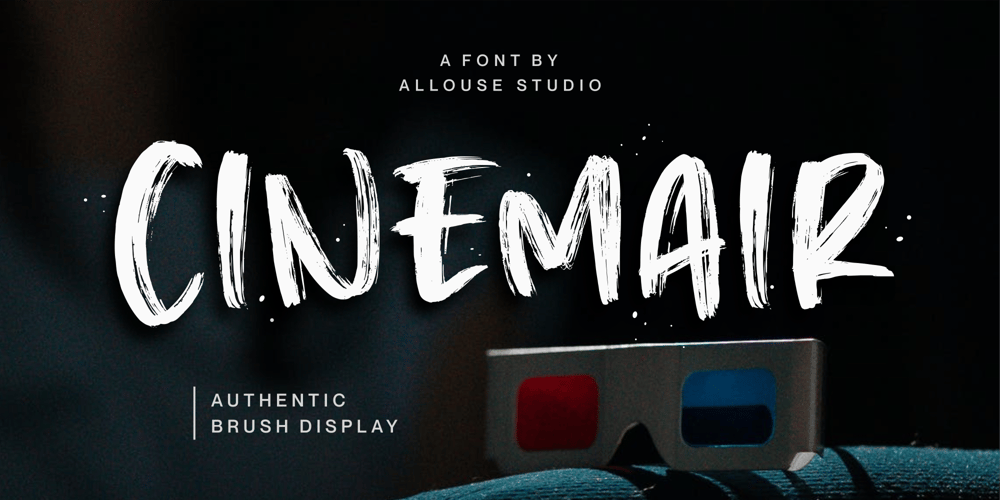
Cinemair Font Family was designed by Fachrizal Yusuf and published by Allouse Studio. Cinemair contains 1 styles and family package options. Proudly Present, Cinemair a Authentic Brush Display FontCinemair is perfect for any titles, logo, product packaging, branding project, megazine, social media, wedding, or just used to express words above the background.Cinemair also come with Multi-Lingual Support.Enjoy the font, feel free to comment or feedback, send me PM or email. Thank You!